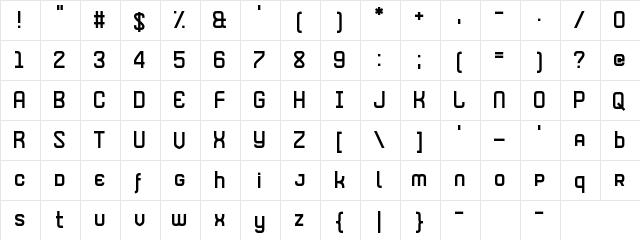
Merriment Helicopter Regular
Design Context for Merriment Helicopter Typeface
Merriment Helicopter offers clean, dependable letterforms without strong stylistic allegiance, making it a practical choice for designers who need flexibility.